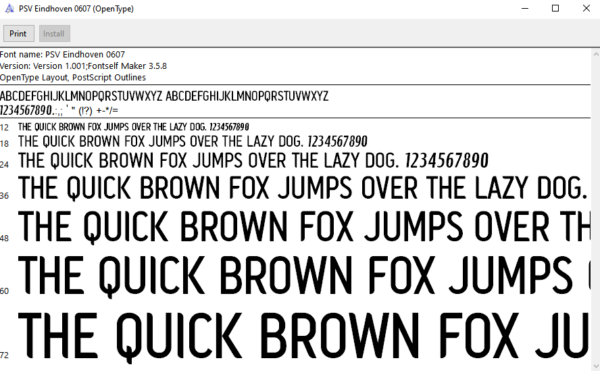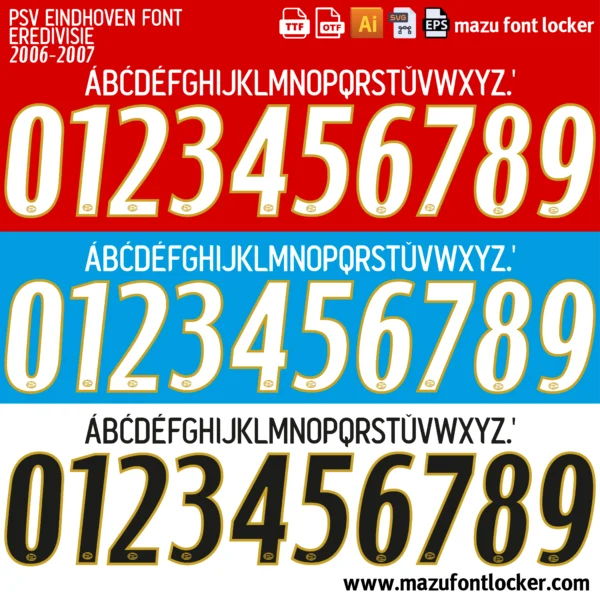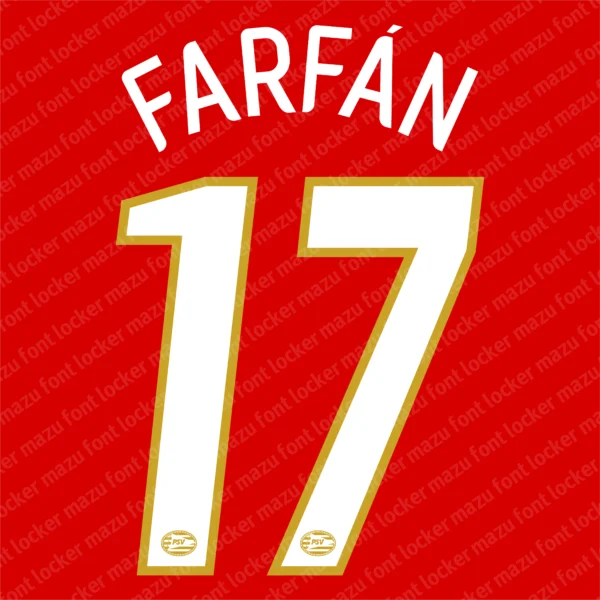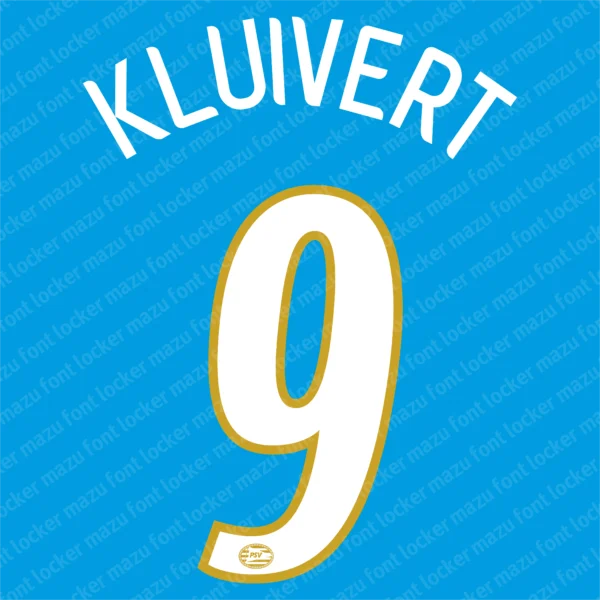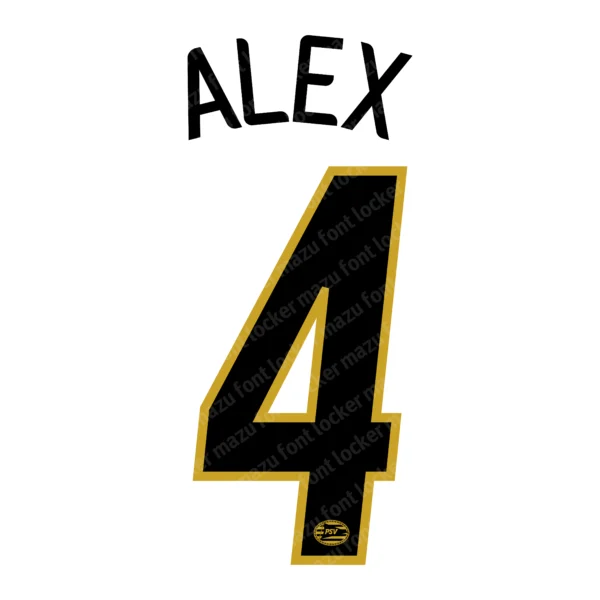
PSV Eindhoven 2006-2007 Font Vector – Stunning Rood-Witten Legendary Masterpiece
PSV Eindhoven 2006-2007 Font Vector – Authentic Rood-Witten Typeface
The PSV Eindhoven 2006-2007 Font Vector is a premium typeface that accurately recreates the official match lettering worn by PSV Eindhoven during the memorable 2006-2007 Eredivisie season. This high-quality vector font kit captures the bold, clean, and iconic typography that represents one of the most successful campaigns in the club’s modern history.
This font stands out because of its sharp vector details and strong club identity. Every letter and number is crafted to match the exact style used on the players’ shirts during the 2006-2007 season. Whether you are making realistic kit templates or nostalgic football content, the PSV Eindhoven 2006-2007 Font Vector gives your designs that authentic Rood-Witten look.
The letterforms in the PSV Eindhoven 2006-2007 Font Vector are tall, bold, and highly readable. The strokes have a strong, clean weight with excellent edge definition that looks powerful on the back of jerseys while maintaining classic elegance and clarity.
• Full uppercase A–Z and numbers 0–9 in authentic PSV Eindhoven 2006-2007 style
• Special PSV Eindhoven crest glyph for accurate shirt number detailing
PSV Eindhoven 2006-2007 Season
PSV Eindhoven, famously known as the Rood-Witten (Red-Whites) or Boeren (The Farmers), delivered a dominant performance in the 2006-2007 Eredivisie season. Under the guidance of manager Ronald Koeman, the team secured the Dutch league title with stars such as Phillip Cocu, Jefferson Farfán, Park Ji-sung, Gomes, and Arouna Koné.
The PSV Eindhoven 2006-2007 Font Vector is an independently designed typeface package. It is carefully crafted to replicate the official shirt lettering style of the 2006-2007 season. This font kit is perfect for creative projects, fan edits, nostalgic jersey designs, and custom football graphics.